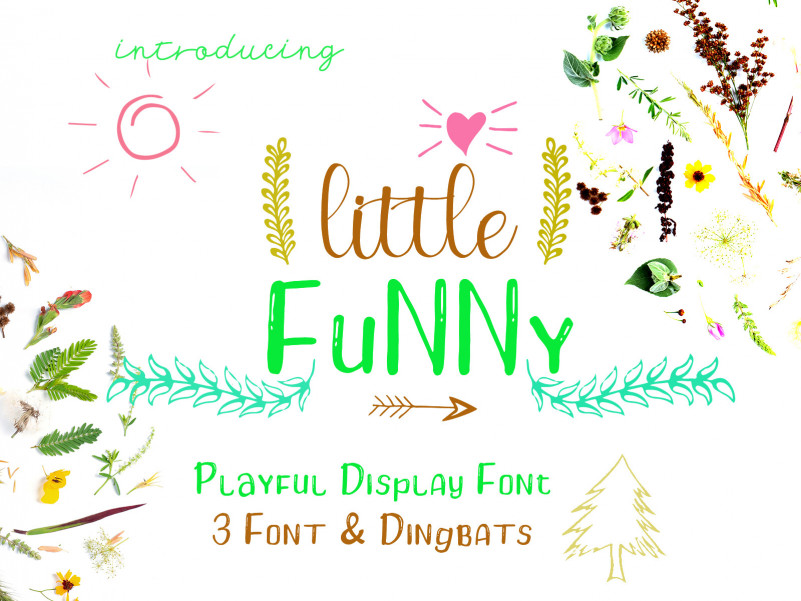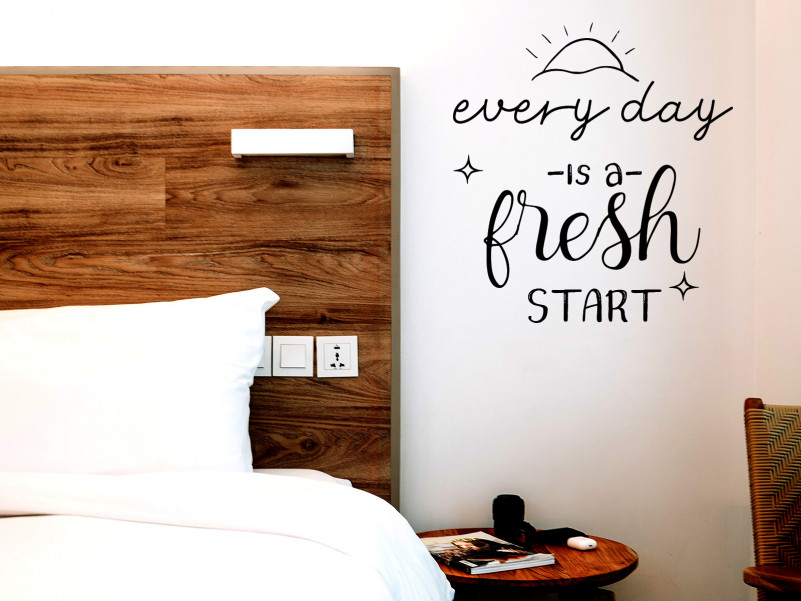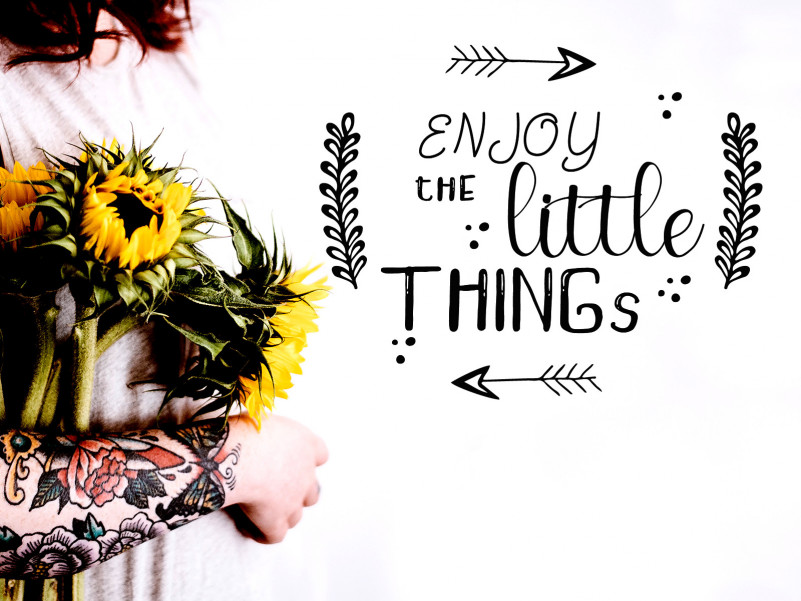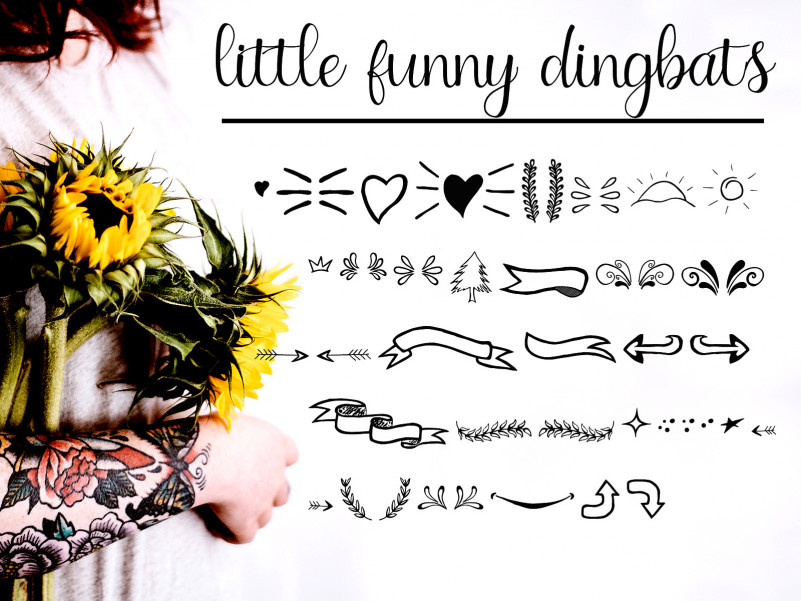
Little Funny – Include 4 Font is a fun handmade font designed for cards, t-shirt designs, quote designs, children’s books… Decorative typeface that will bring you a positive vibe from feeling happy. It comes with uppercase letters, lowercase letters, basic characters, standard numbers and punctuation, alternatives.